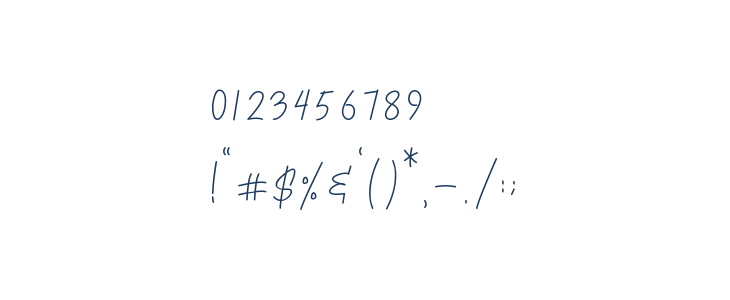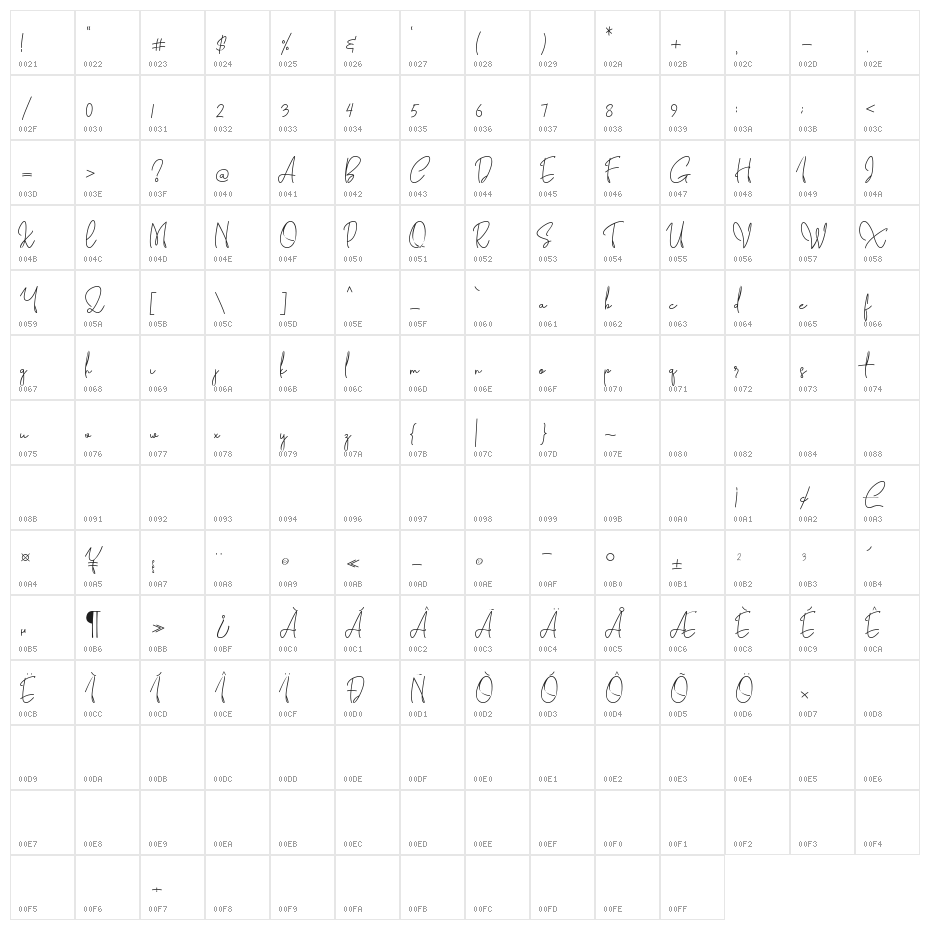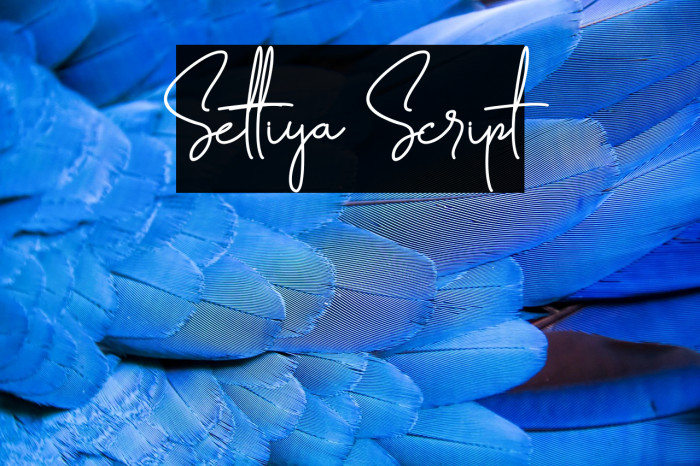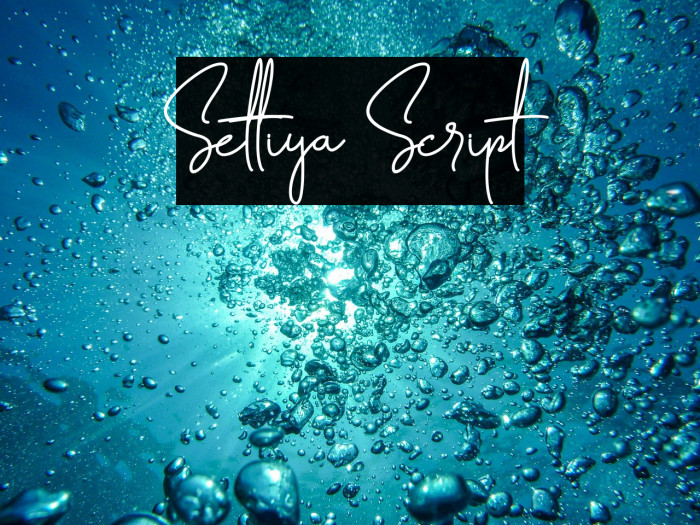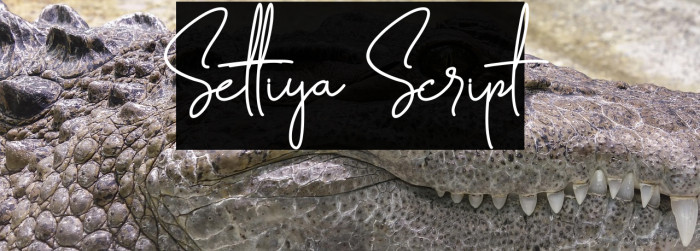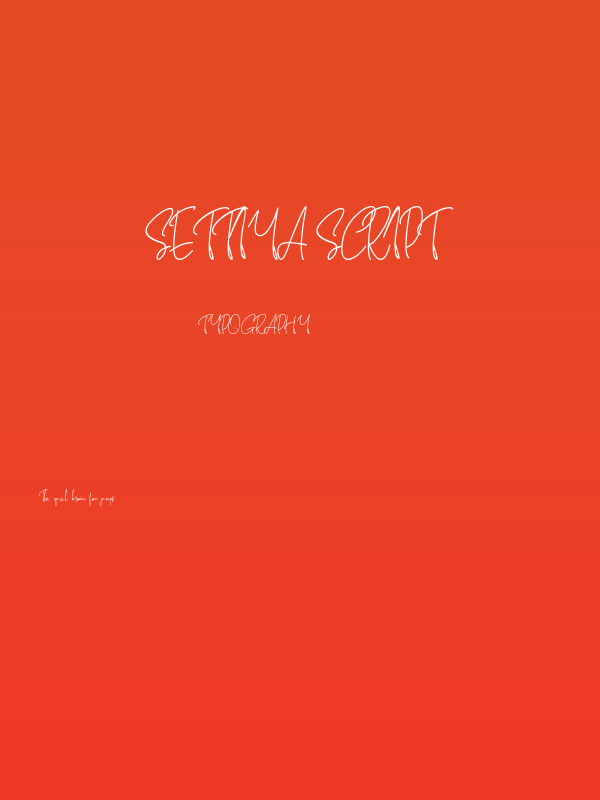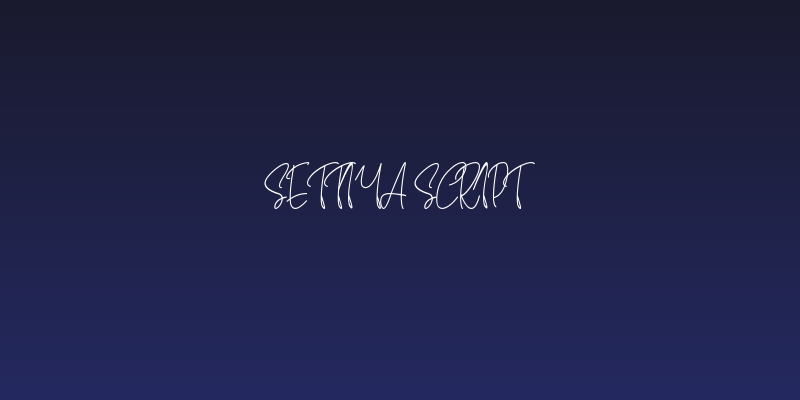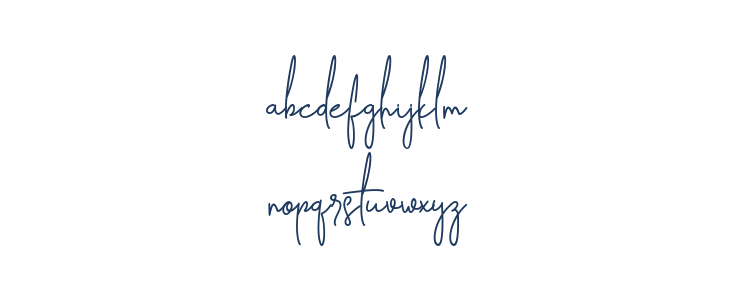
Settiya Script Font
Settiya Script Description
This elegant script font features a flowing, handwritten style with a modern flair. The uppercase letters are tall and slender, with graceful loops and curves that give them a sophisticated appearance. The lowercase letters maintain a consistent style, with smooth connections and a slightly more compact form. The numerals are clear and legible, matching the overall aesthetic of the font. Special characters are thoughtfully designed, complementing the script's fluidity. This font exudes a sense of elegance and creativity, making it suitable for various artistic and formal applications.
| Use Case | Logos, Invitations, Artistic projects |
| Proposed Projects | Ideal for wedding invitations, greeting cards, branding, and elegant logo designs. |